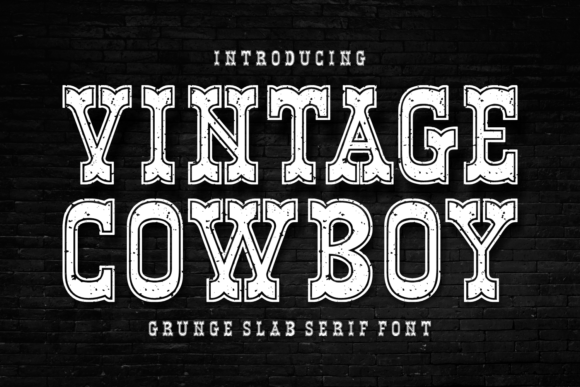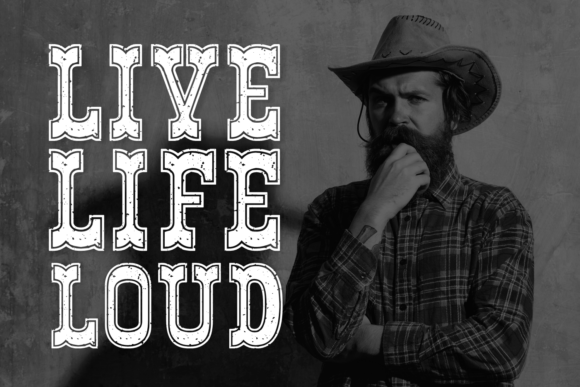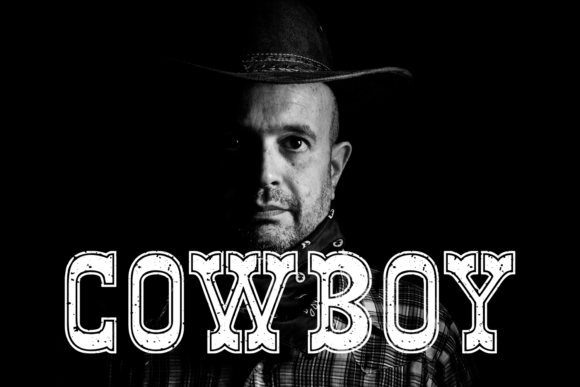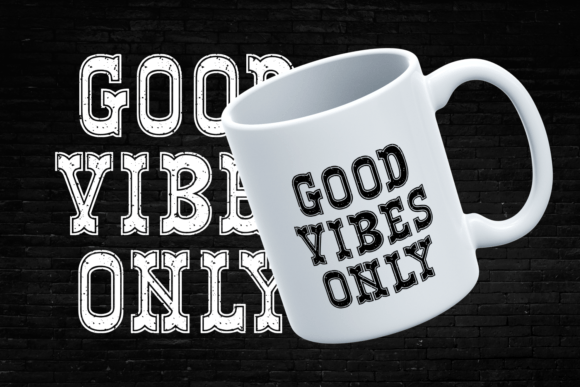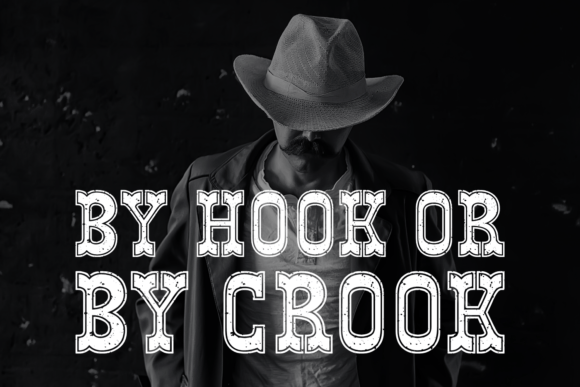
Vintage Cowboy Grunge Font
About Vintage Cowboy Grunge Font
Unleash your creativity with Vintage Cowboy, a beautifully bold slab serif font that adds an authentic touch to any design project. This charmingly rustic font is extraordinarily versatile, making it perfect for a wide range of applications, from Procreate and Cricut projects to commercial ventures. Whether you’re designing in Canva or crafting a unique brand identity, this font styling will certainly make an impression.
Resonating with vibes from the 60s to the 90s, Vintage Cowboy effortlessly combines retro-modern aesthetics with a psychedelic twist. It’s chunky, it’s curly, it’s groovy – it’s everything you need to bring a dash of the past into your work.